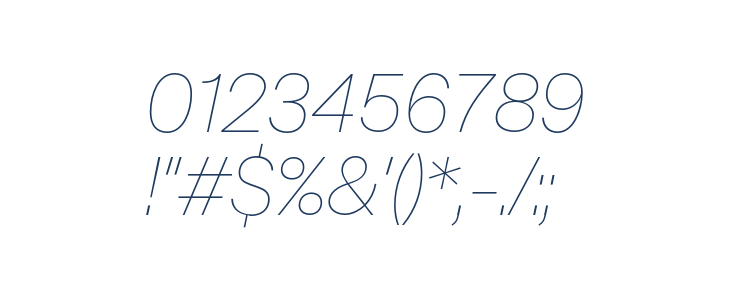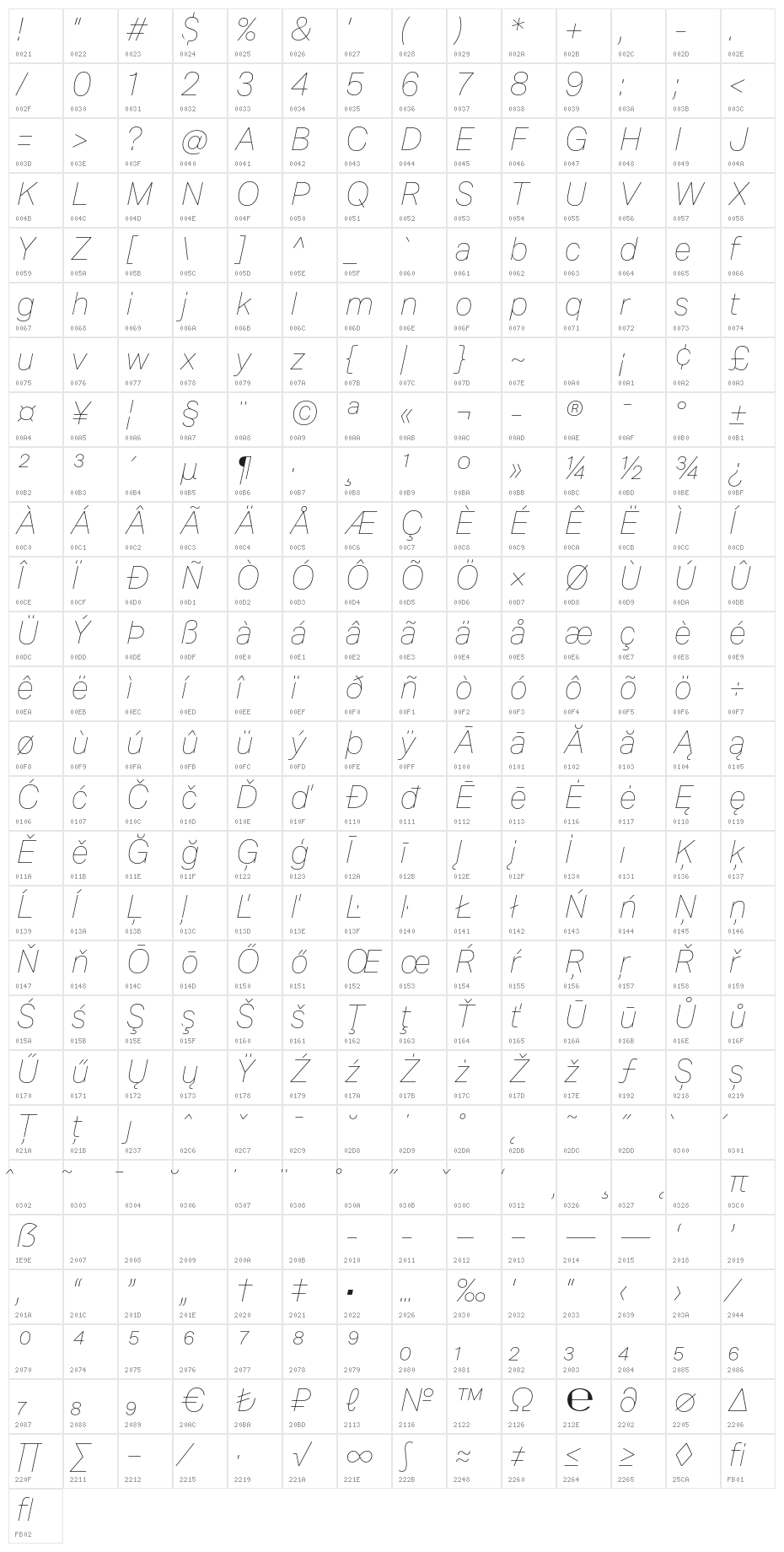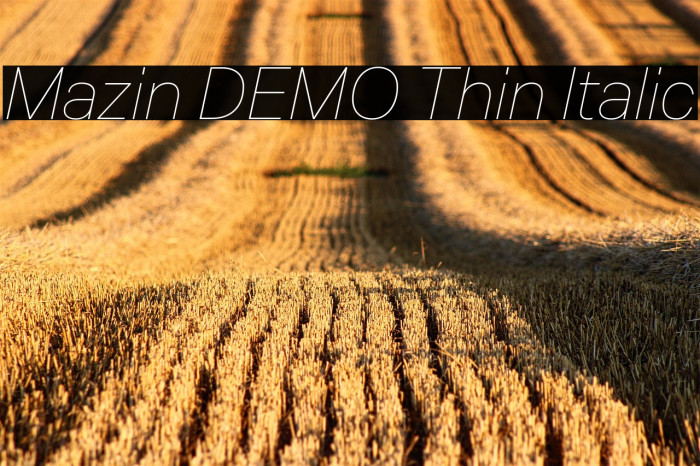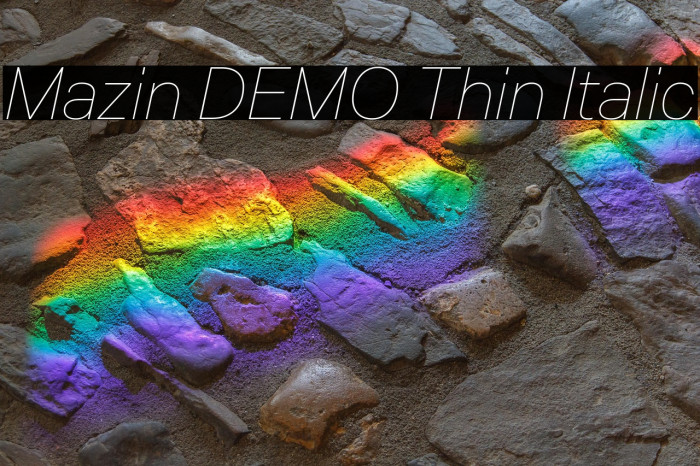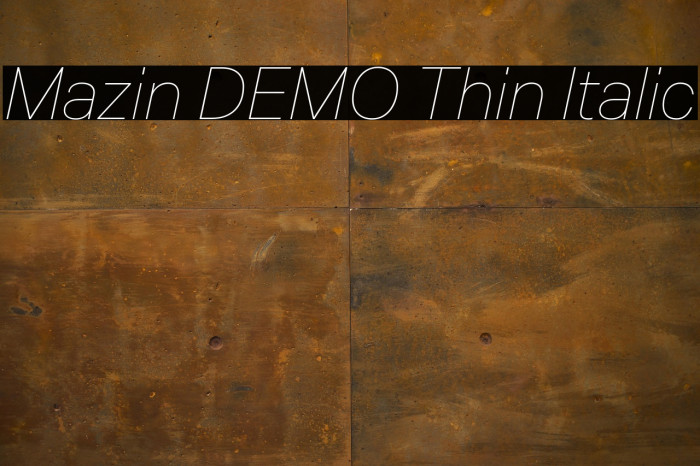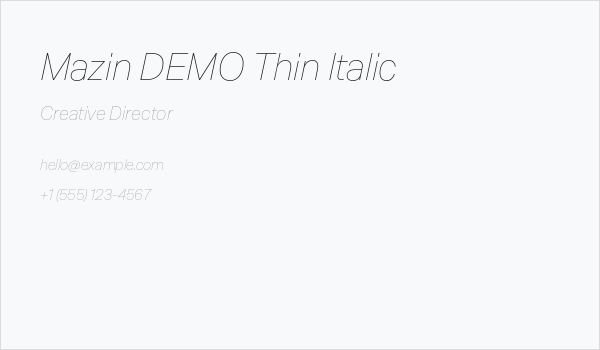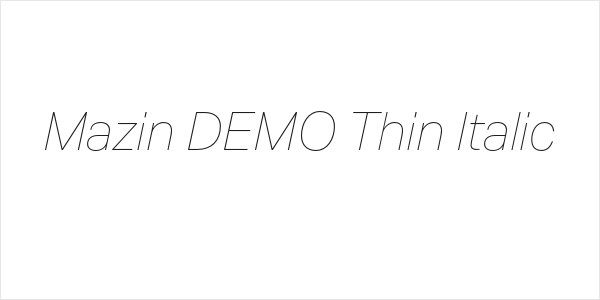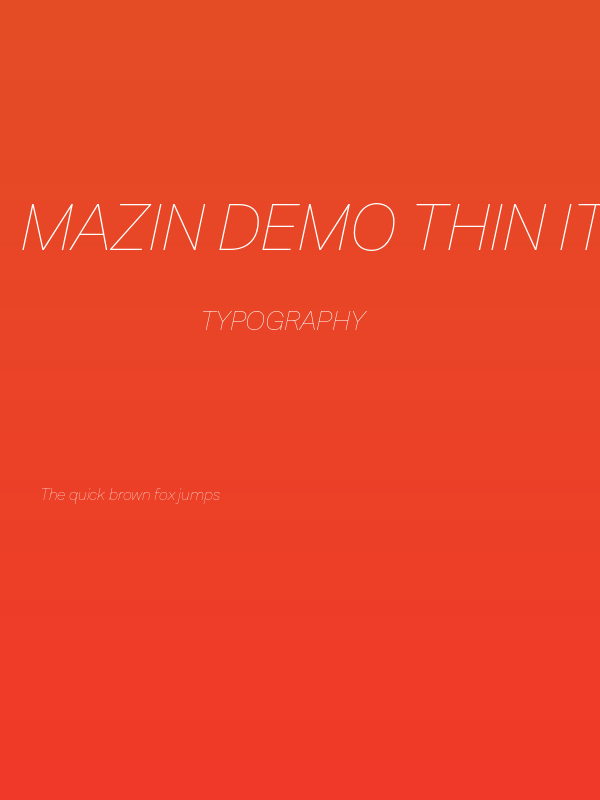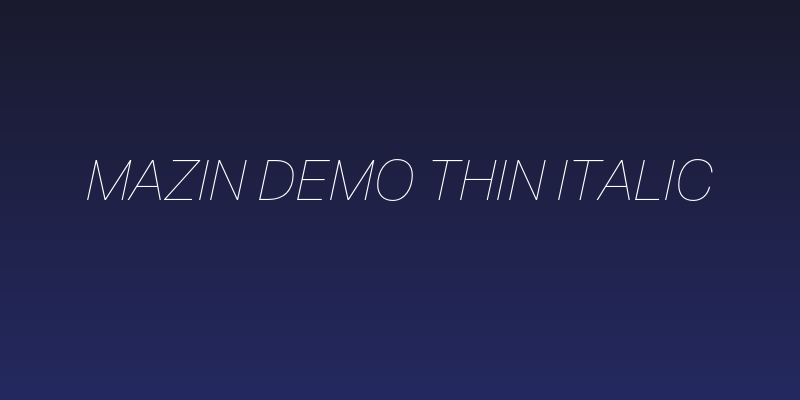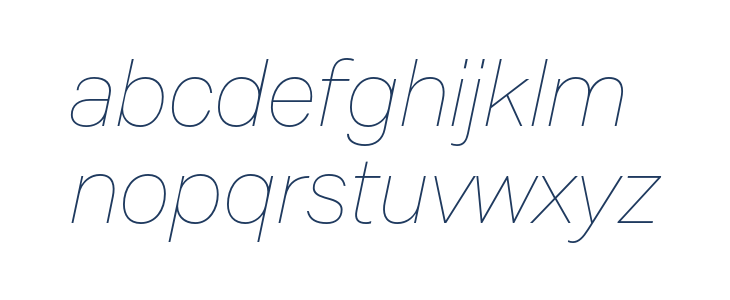
Mazin DEMO Thin Italic Font
Mazin DEMO Thin Italic Description
This font features a sleek and elegant design with thin, elongated letterforms that convey a sense of modernity and sophistication. The characters are slightly italicized, adding a dynamic and fluid appearance. The strokes are consistent in their thinness, creating a uniform and clean look. The font maintains a high level of legibility despite its delicate structure, making it suitable for various design applications. Its minimalistic style is enhanced by the generous spacing between characters, which contributes to its airy and open feel. The font's simplicity and elegance make it versatile for both digital and print media.